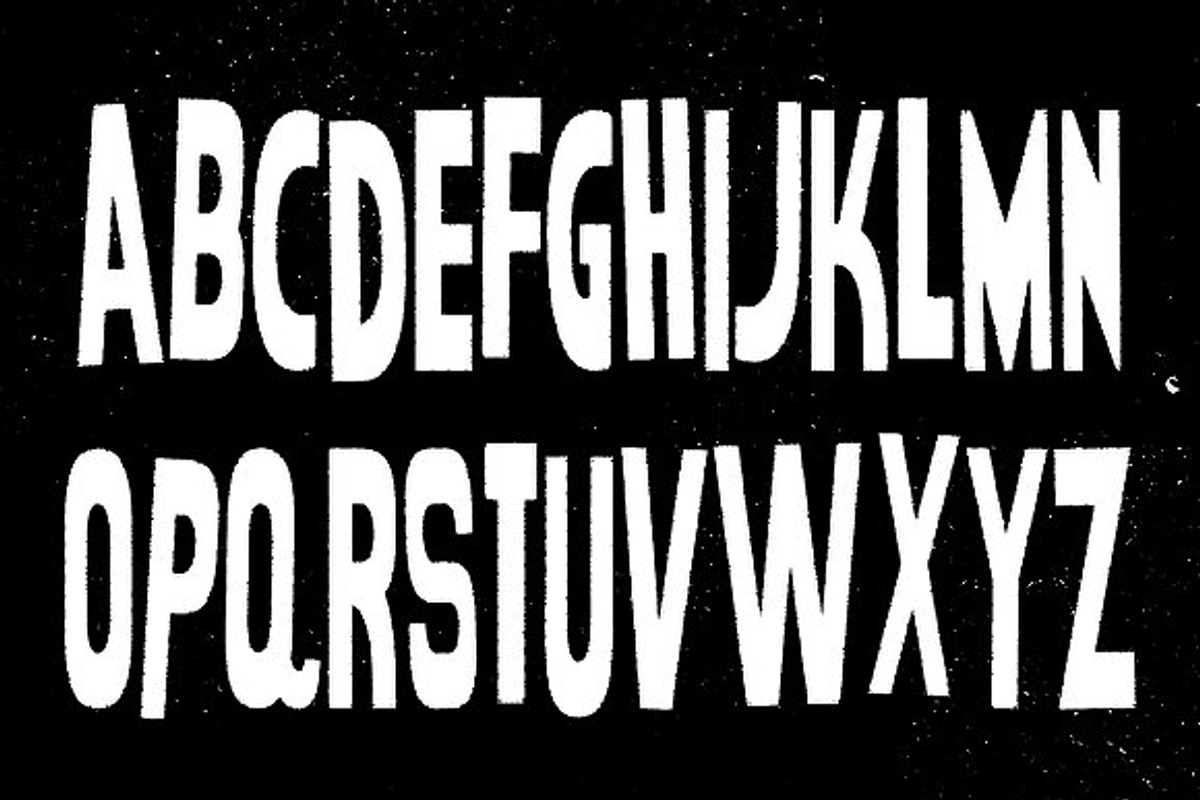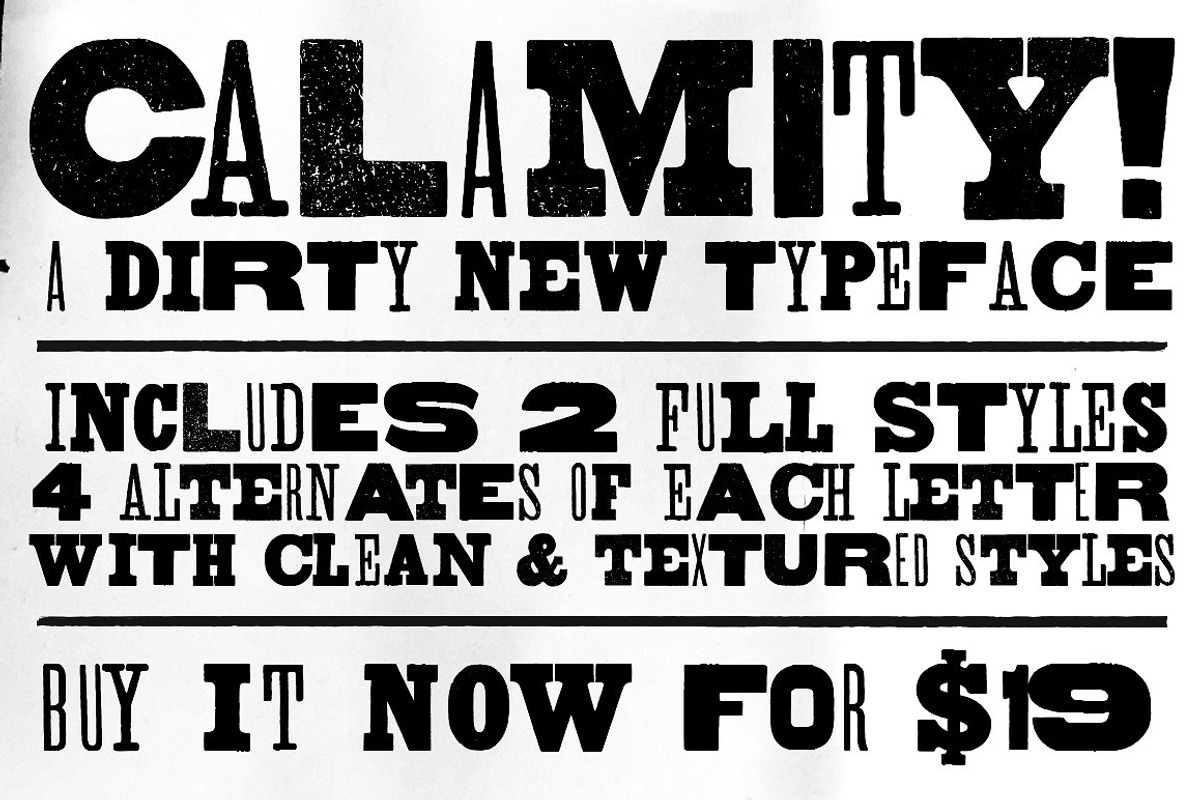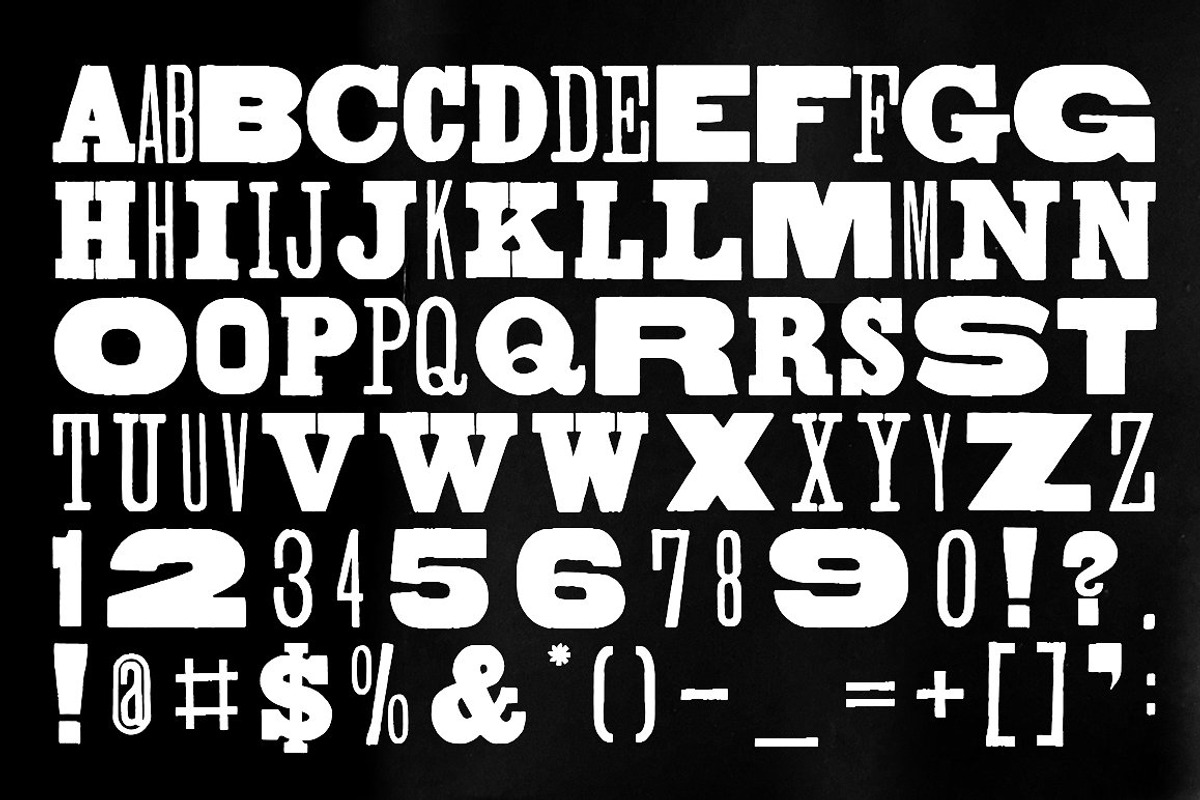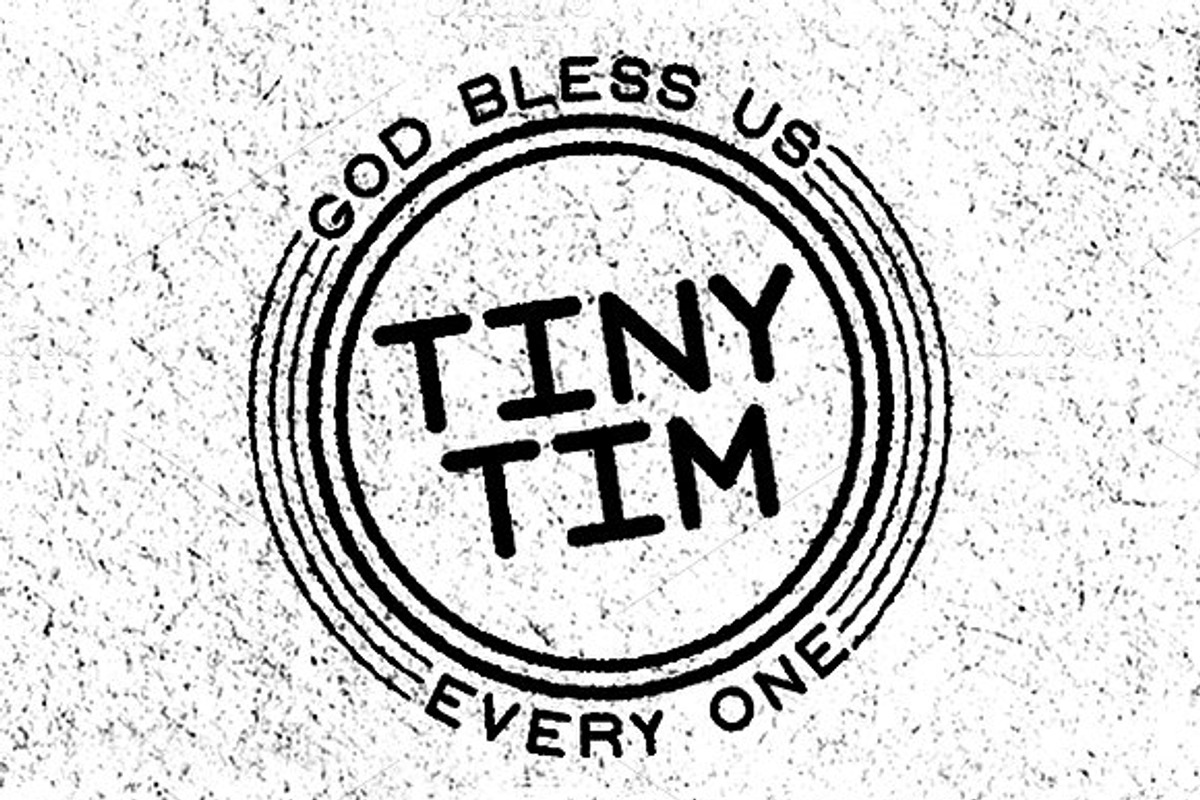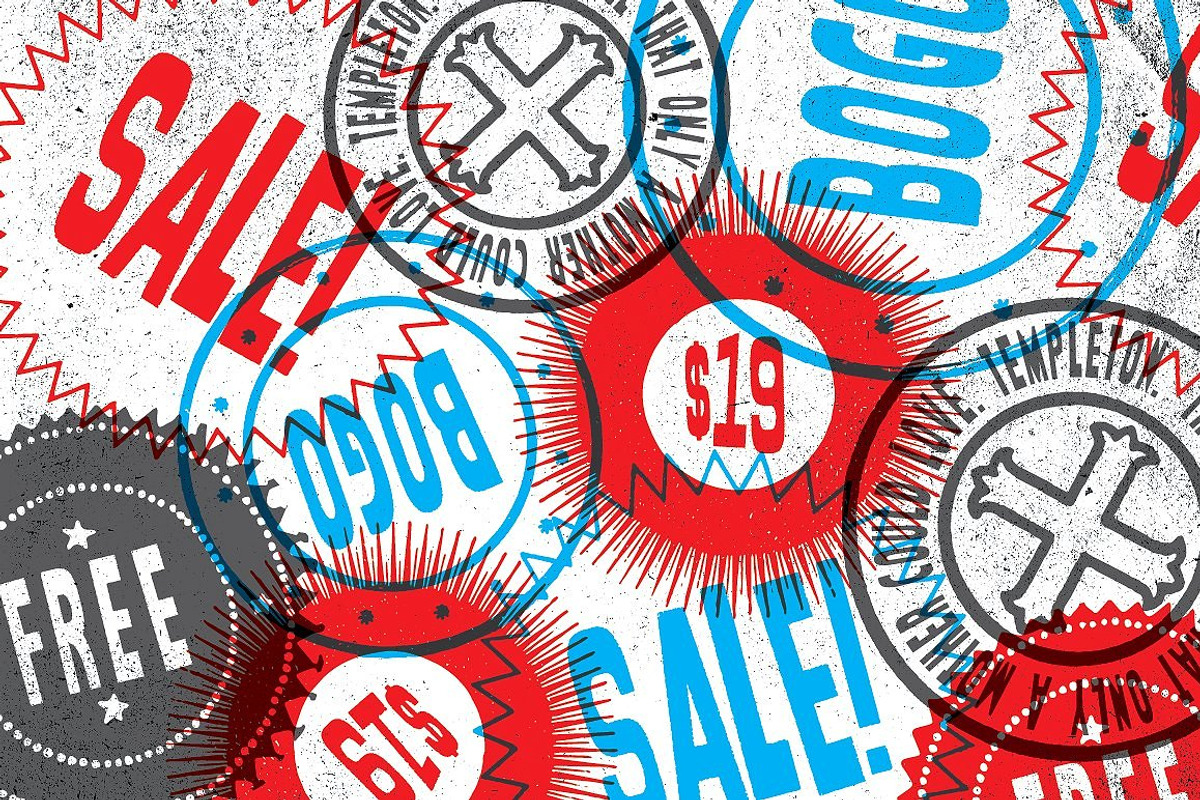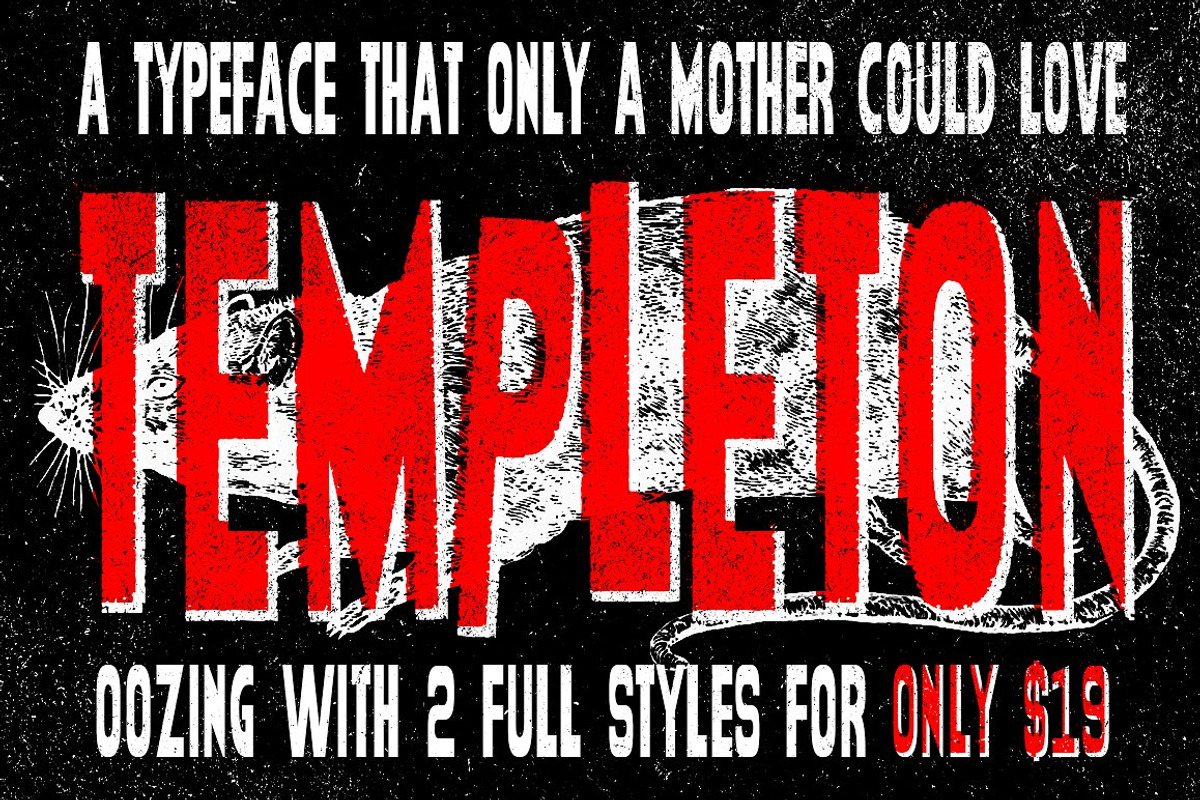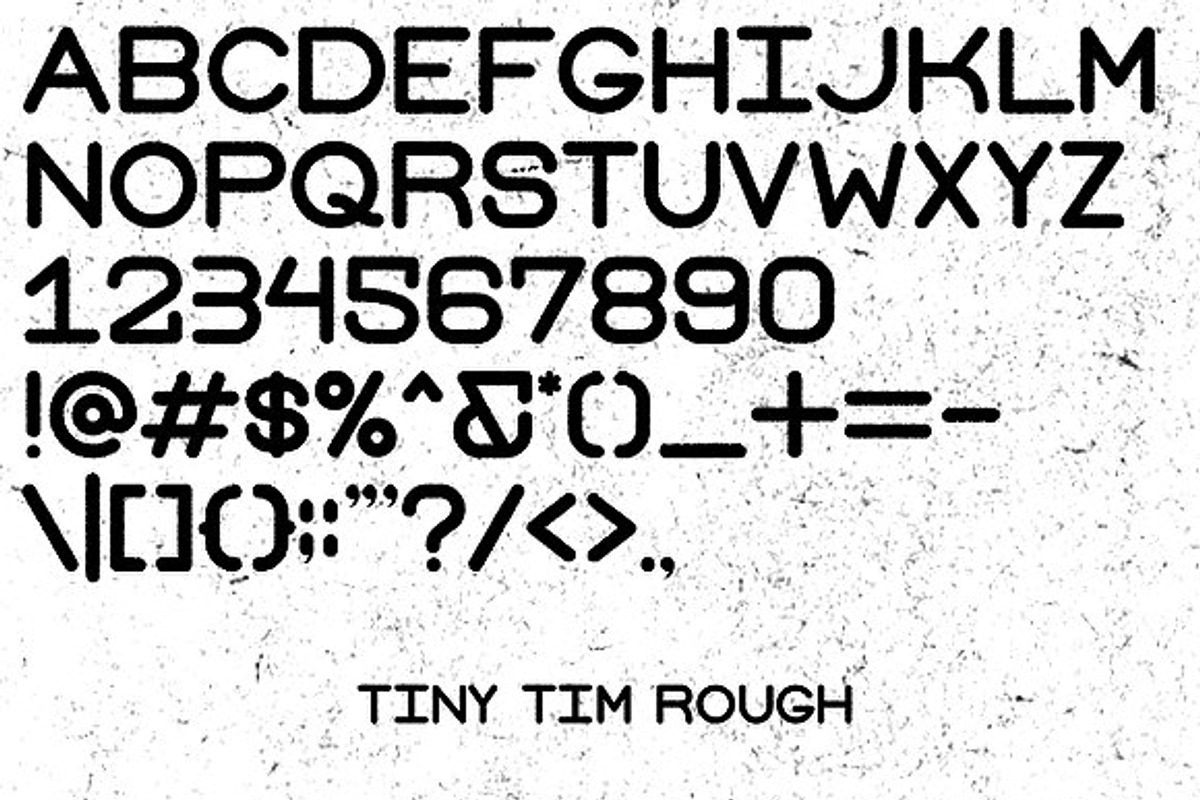
FONT MEGAPACK
FONT MEGAPACK by Andrew Hochradel is a font selected for branding, posters, packaging, typography.
Why FONT MEGAPACK is worth a look
FONT MEGAPACK by Andrew Hochradel fits naturally into Branding, posters, packaging, typography.